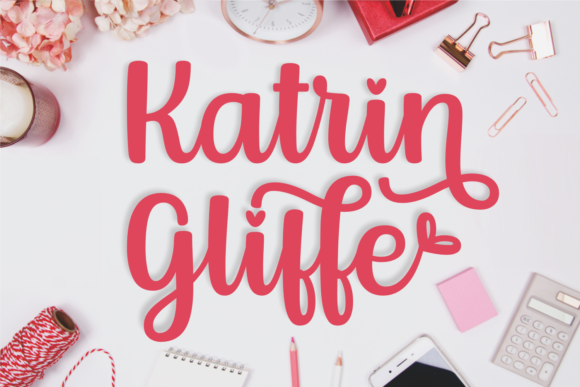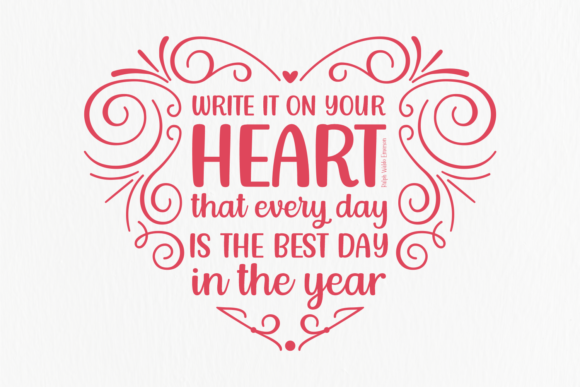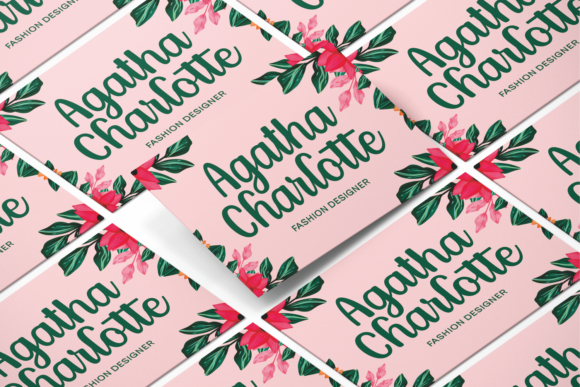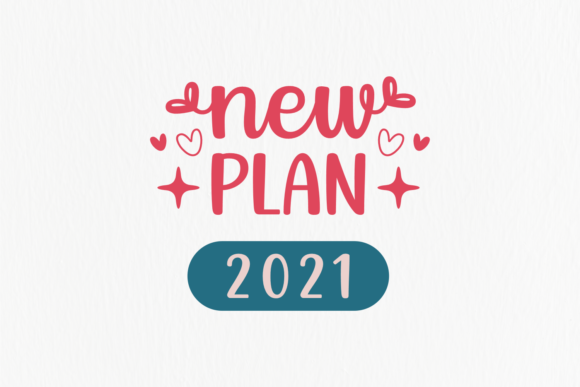
Katrin Gliffe Font
About the Katrin Gliffe Font
Experience the unique personality of Katrin Gliffe Font, a font designed for impact. Katrin Gliffe is a playful script font with a contemporary atmosphere and impeccable form, inspired by timeless classic calligraphy. Not too thin and not too thick, balanced and varied, this font was designed to enhance the beauty of your projects.
Katrin Gliffe excels in applications requiring a touch of elegant playfulness. It’s ideal for headlines, short text blocks on invitations or branding materials, and even packaging where a sophisticated yet approachable feel is desired. Avoid using it for large blocks of body text or UI elements; its script nature hinders readability in extended passages.
Katrin Gliffe possesses a sophisticated yet approachable personality. Its balanced forms convey a sense of elegance and refinement, while the playful script style adds a touch of warmth and personality, making it suitable for brands aiming for a modern yet timeless image.